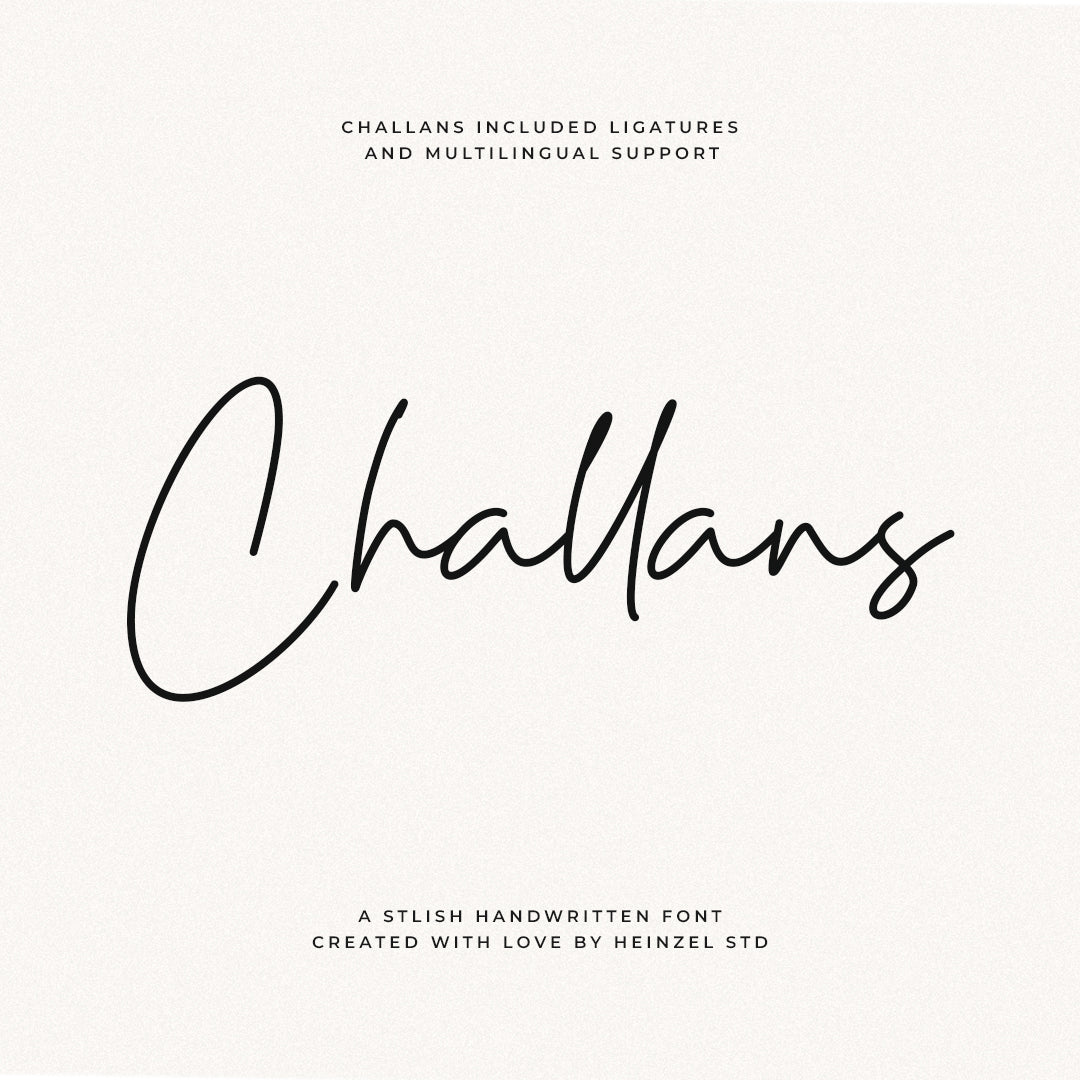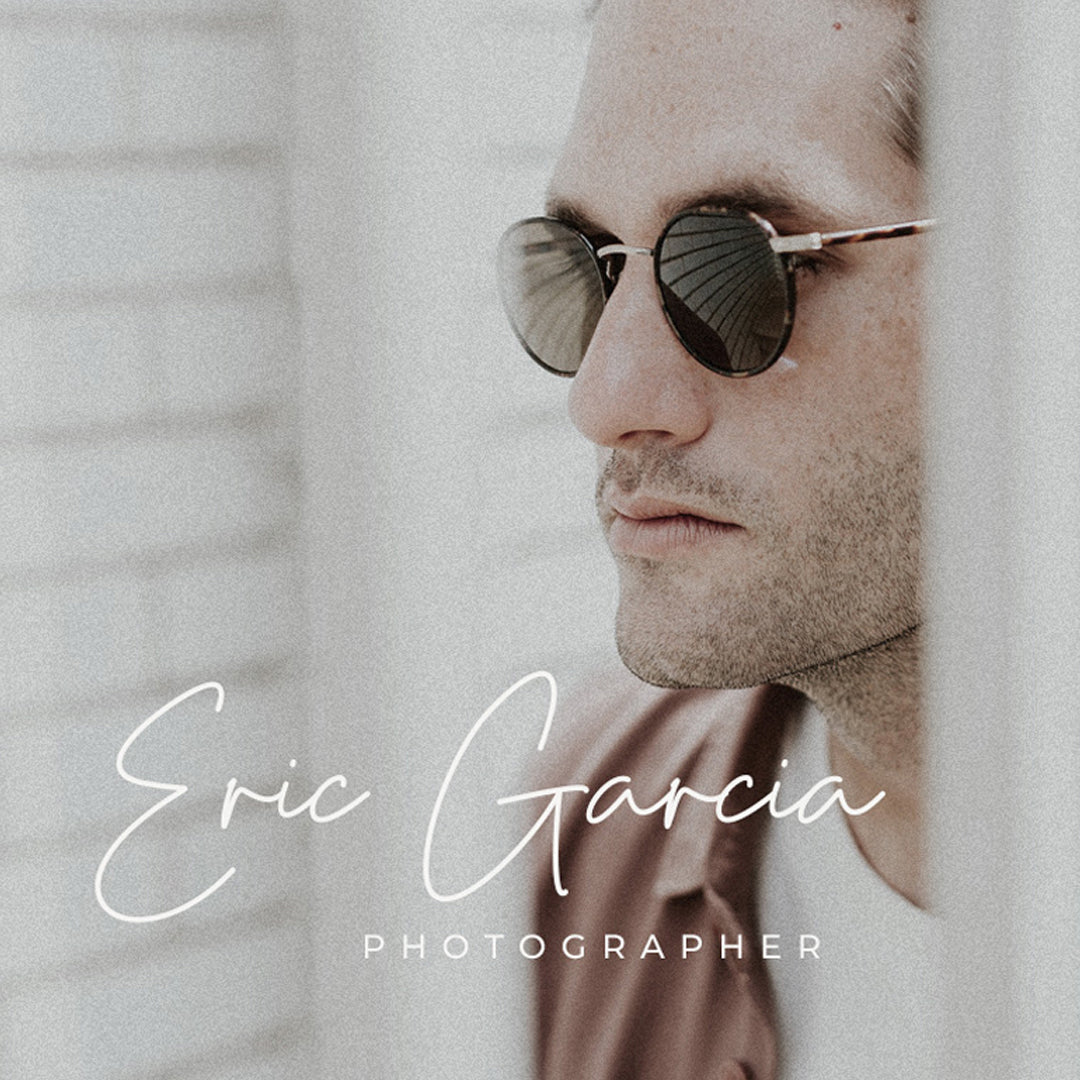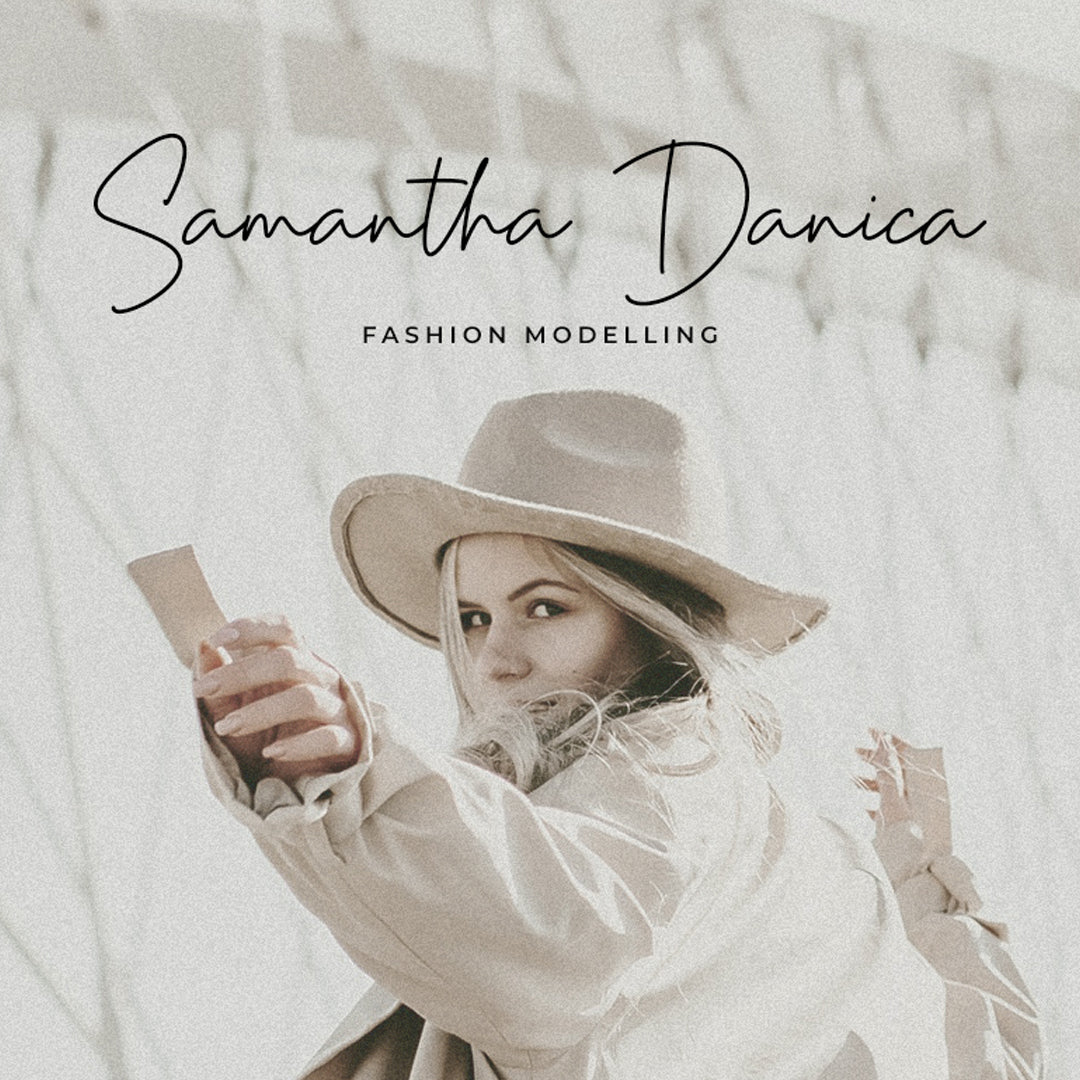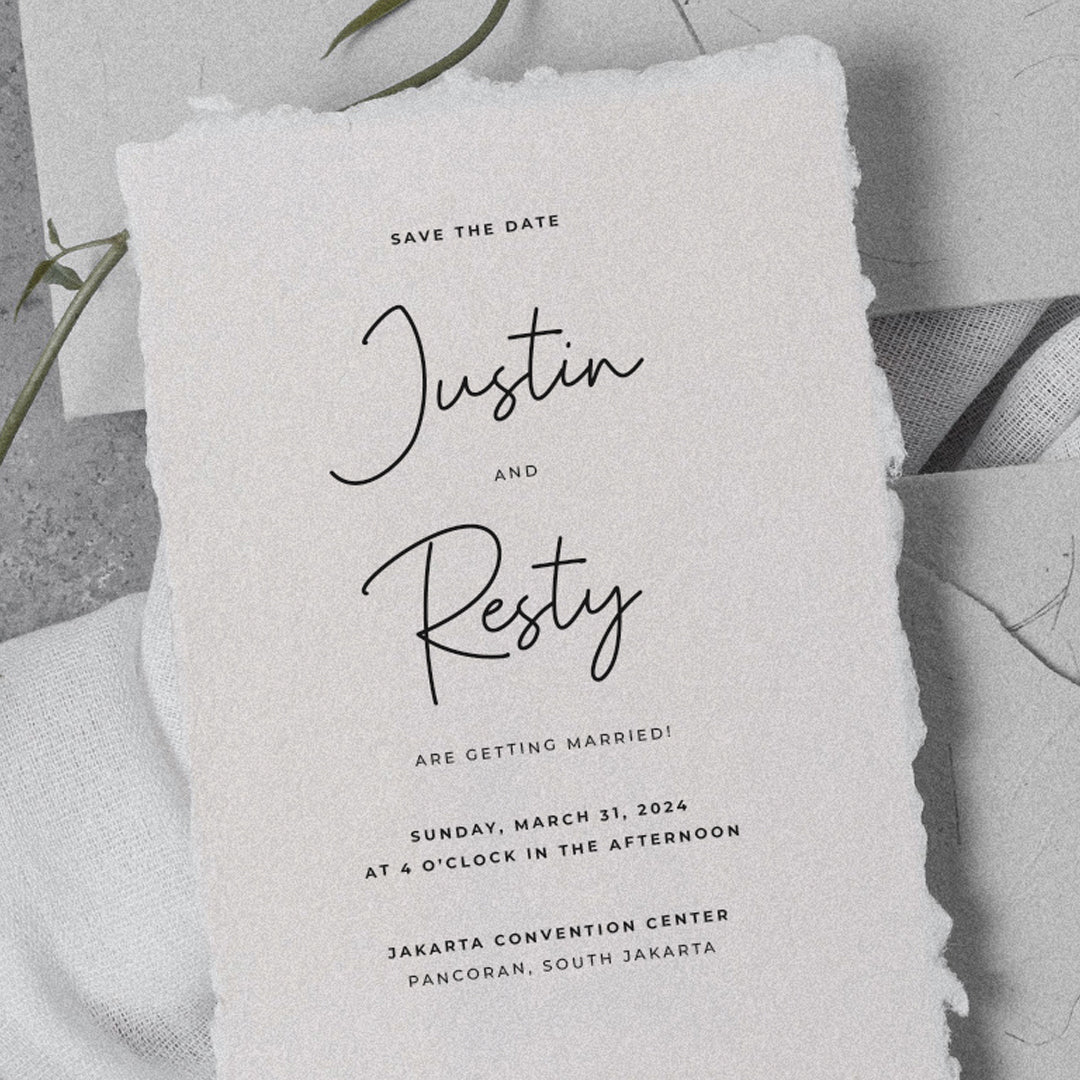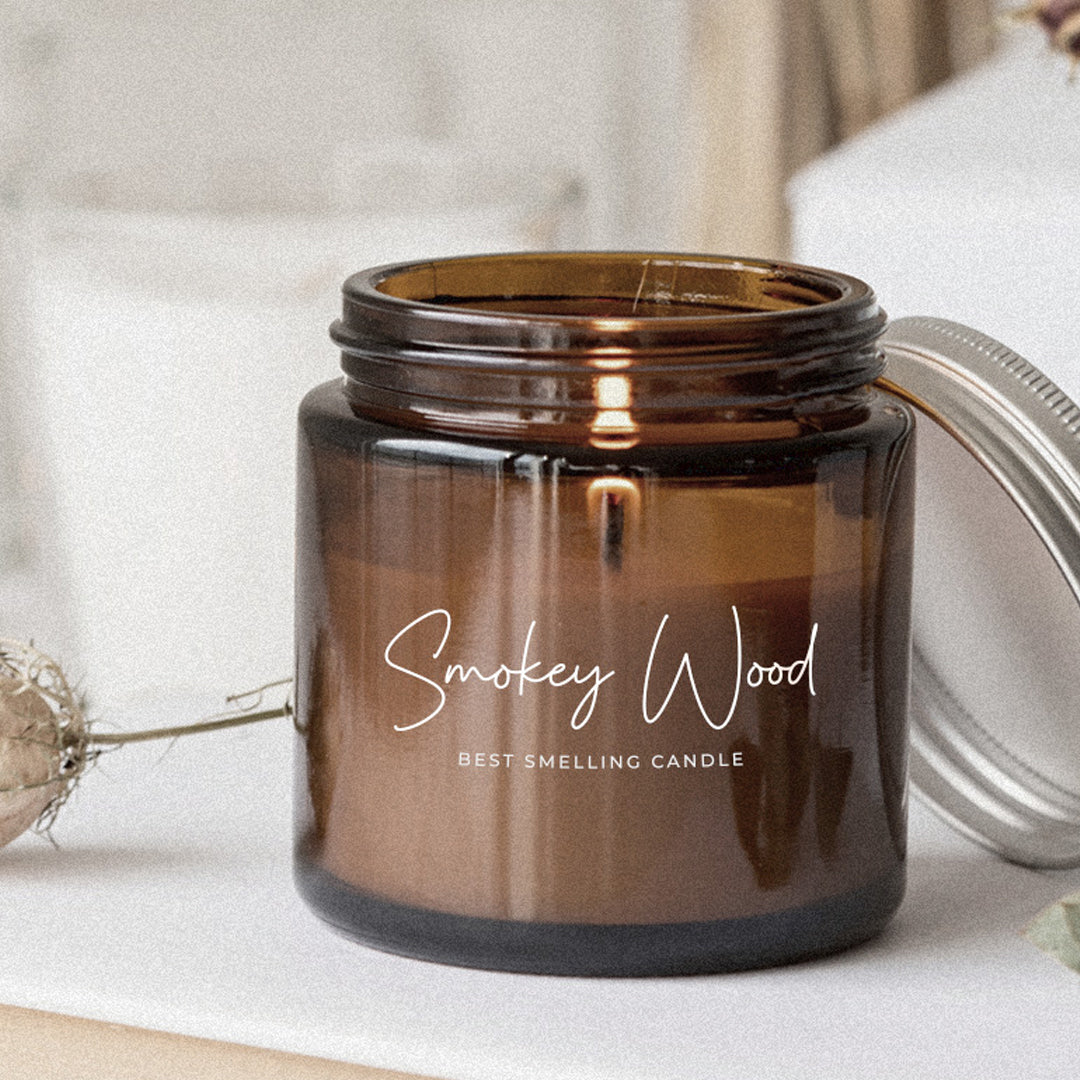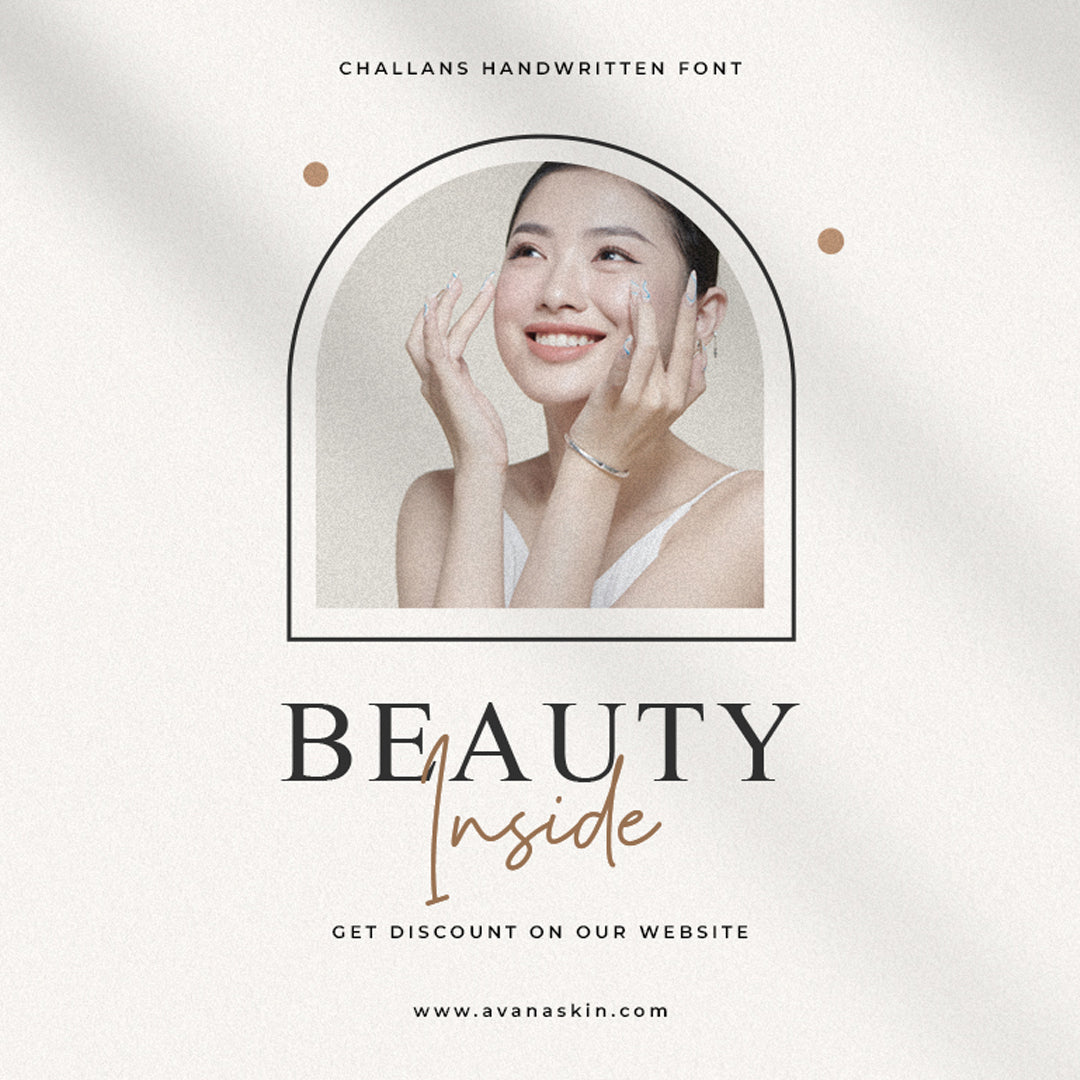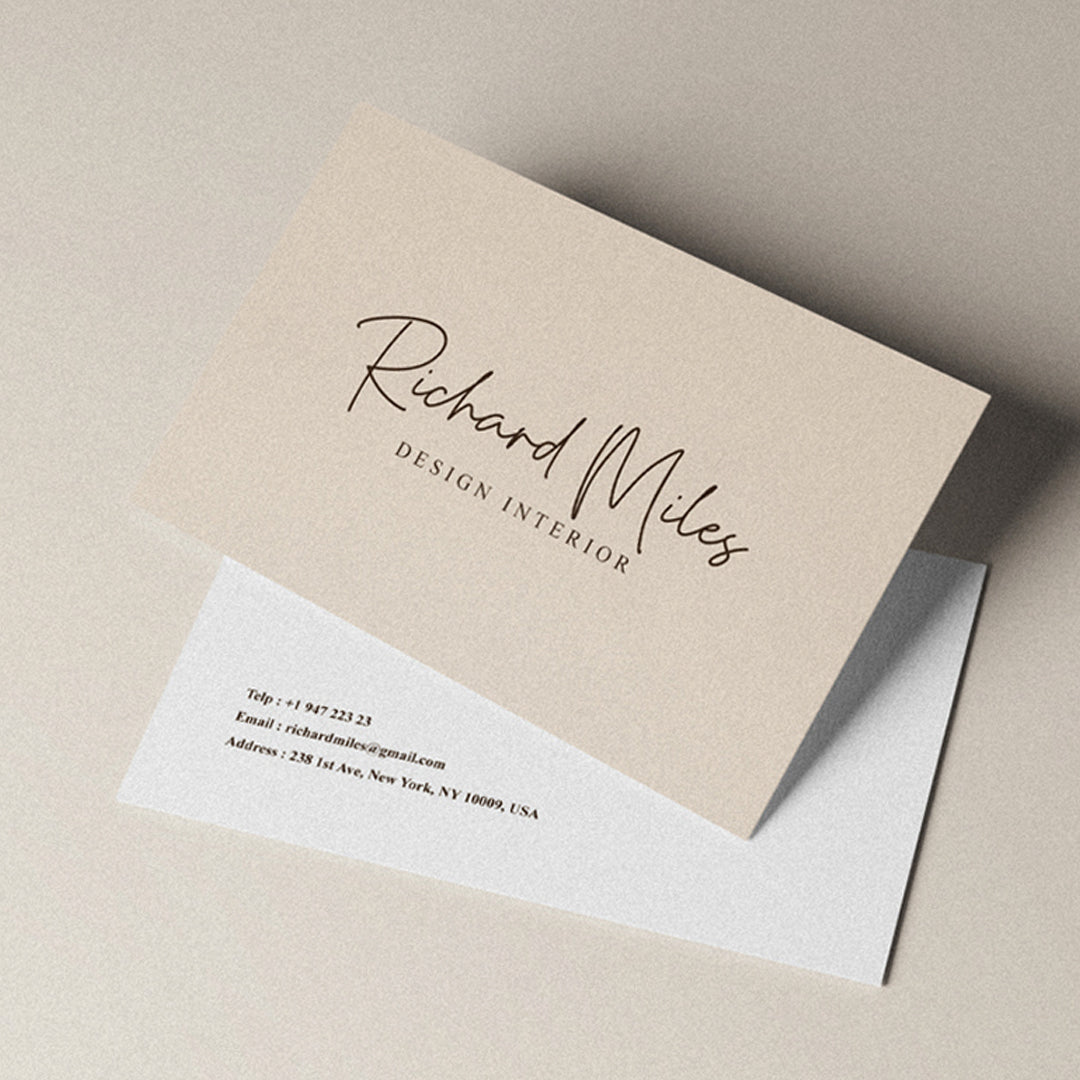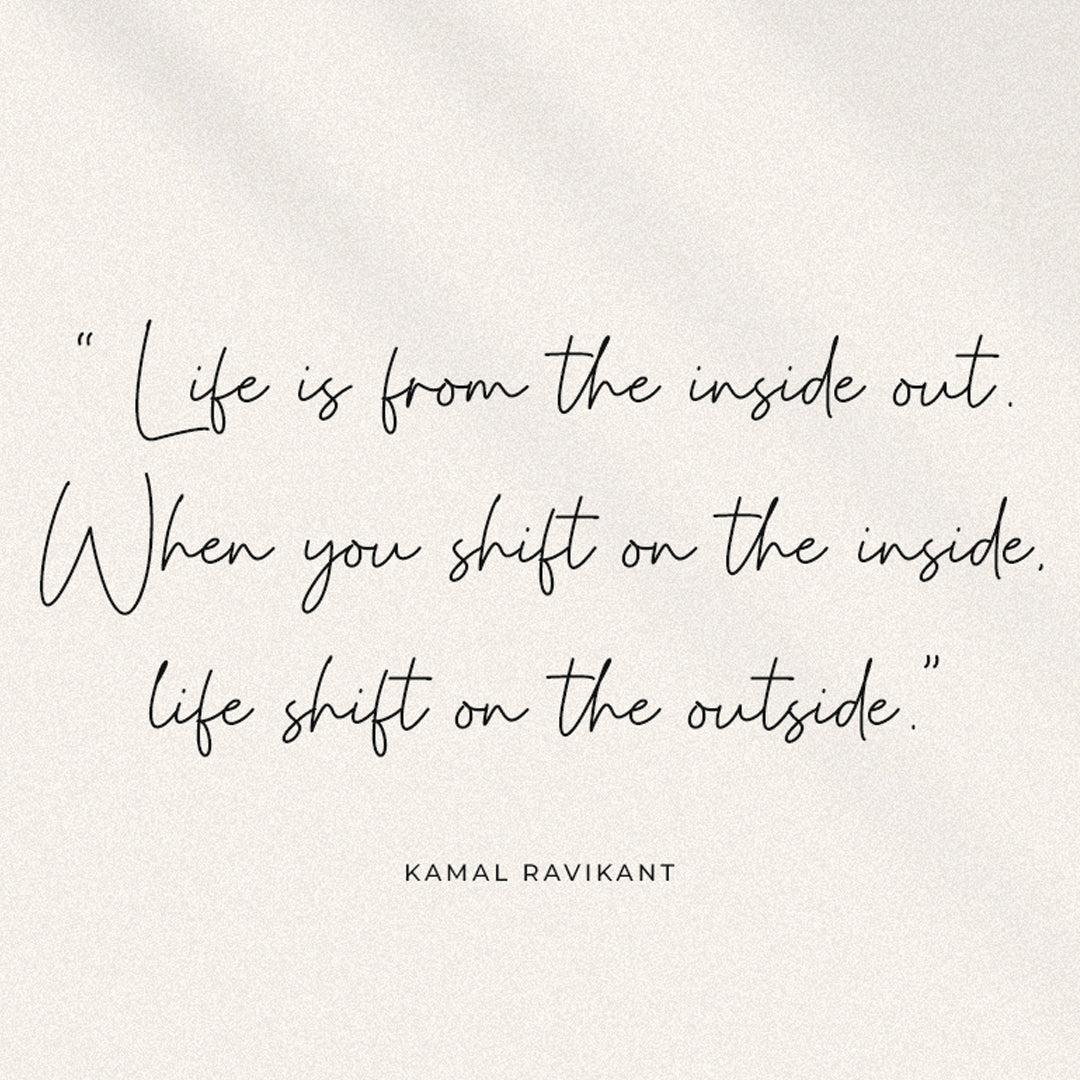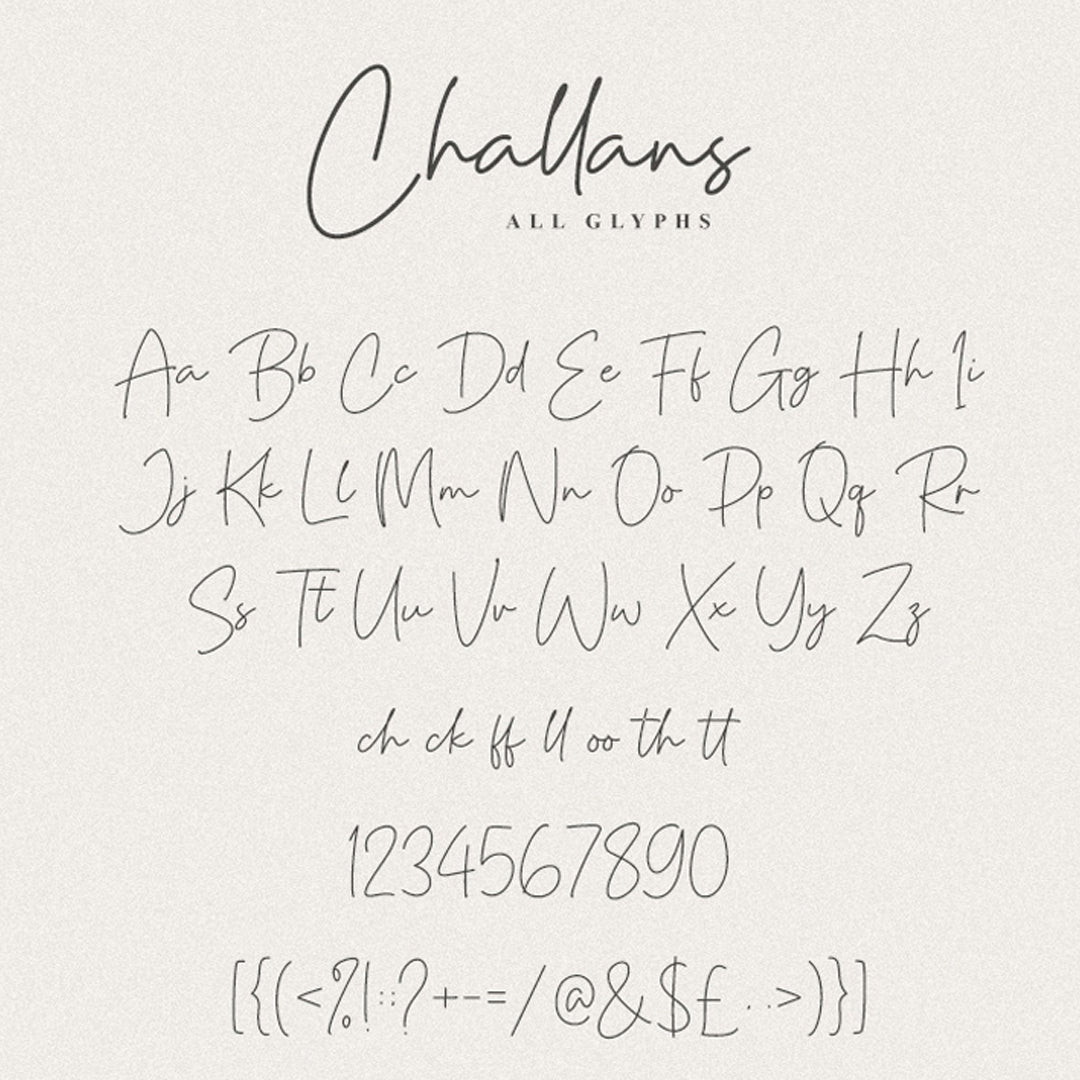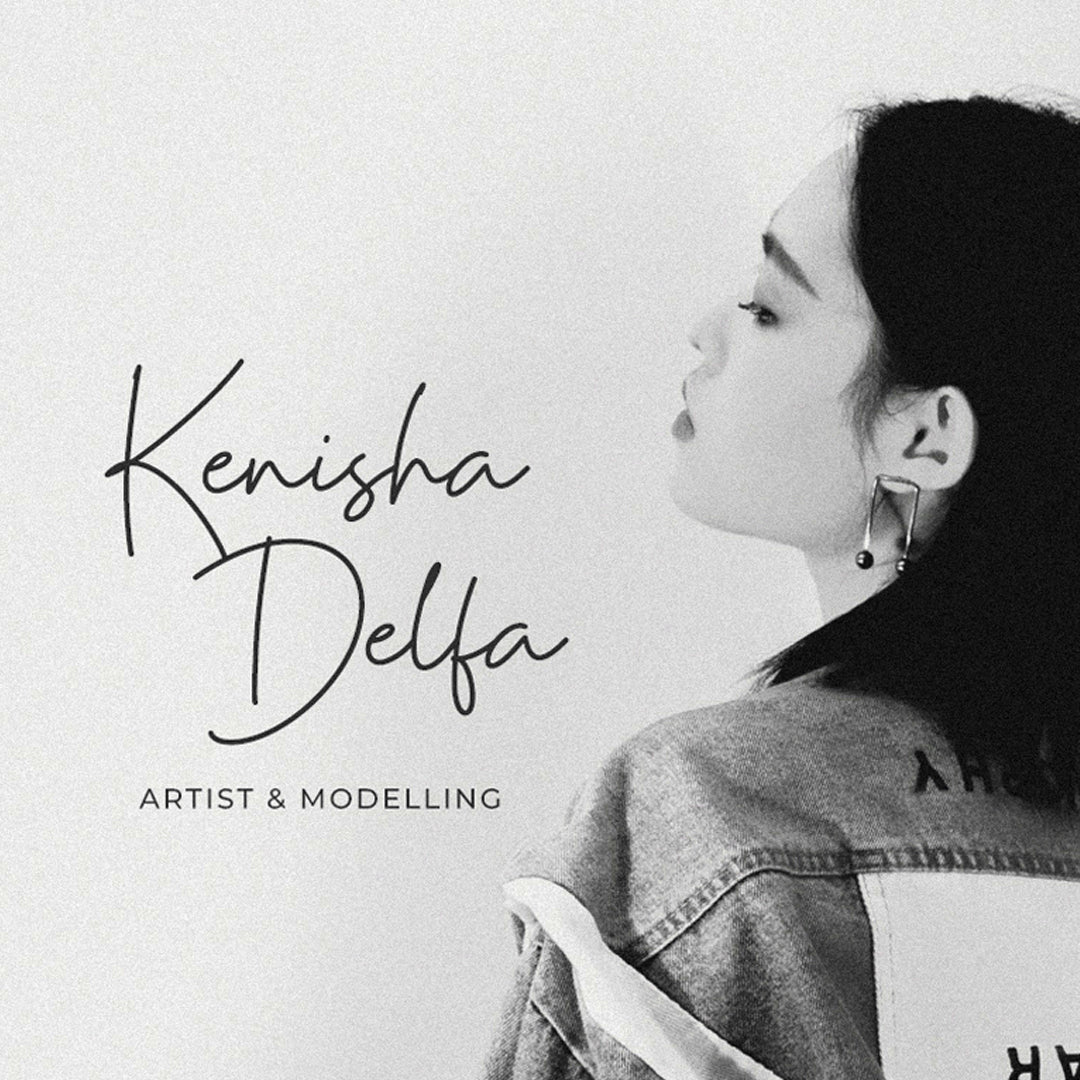
Challans Stylish Handwritten Font
Challans is a stylish handwritten font, described by an elegant touch, perfect for your favorite projects. It looks stunning on wedding invitations, thank you cards, quotes, greeting cards, logos, branding, business cards, social media posts, magazines, marketing materials, and every other design that needs a handwritten touch. Fall in love with its incredibly distinct and timeless style and use it to create spectacular designs!
Challans is a handwritten script font featuring ligatures and multilingual support. It is designed in an elegant, stylish format suited for branding, invitations, and related design applications.